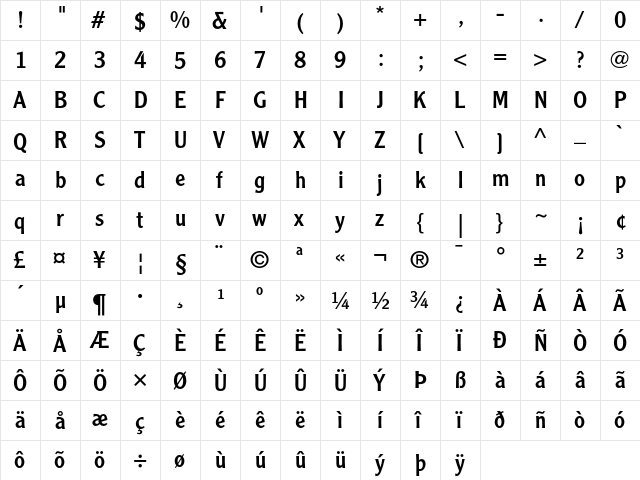
Clearface Gothic LH 55 Roman
Design Context for Clearface Gothic LH Typeface
Clearface Gothic LH has the quiet confidence of well-executed sans-serif typography: versatile, unobtrusive, and dependable at any size.
Font Pairing: Works well alongside a characterful serif or display font that can carry the expressive load while Clearface Gothic LH handles the functional copy.
Pro Tip: Use Clearface Gothic LH for UI labels, navigation, and short-form body copy where clean legibility is the priority.